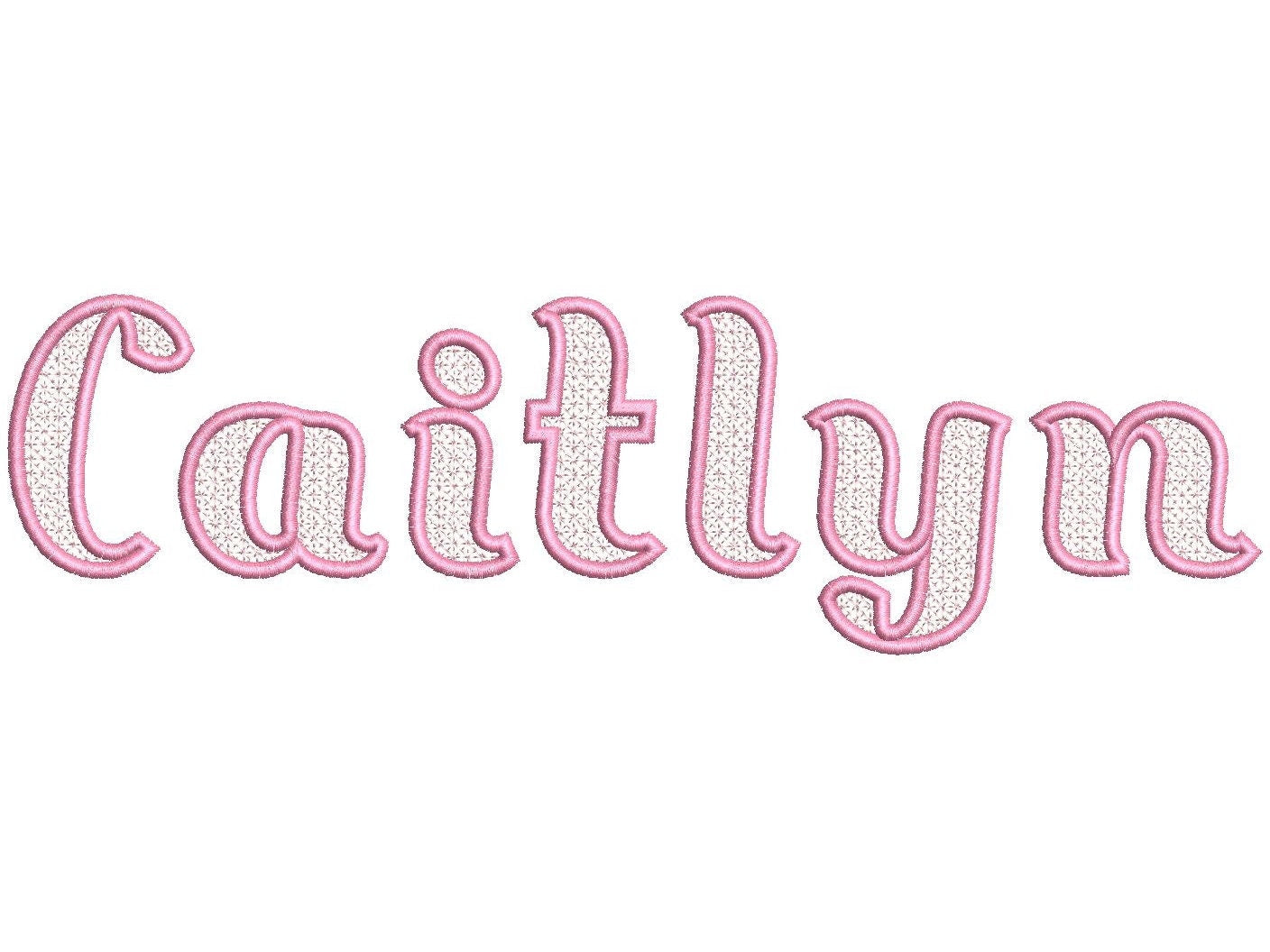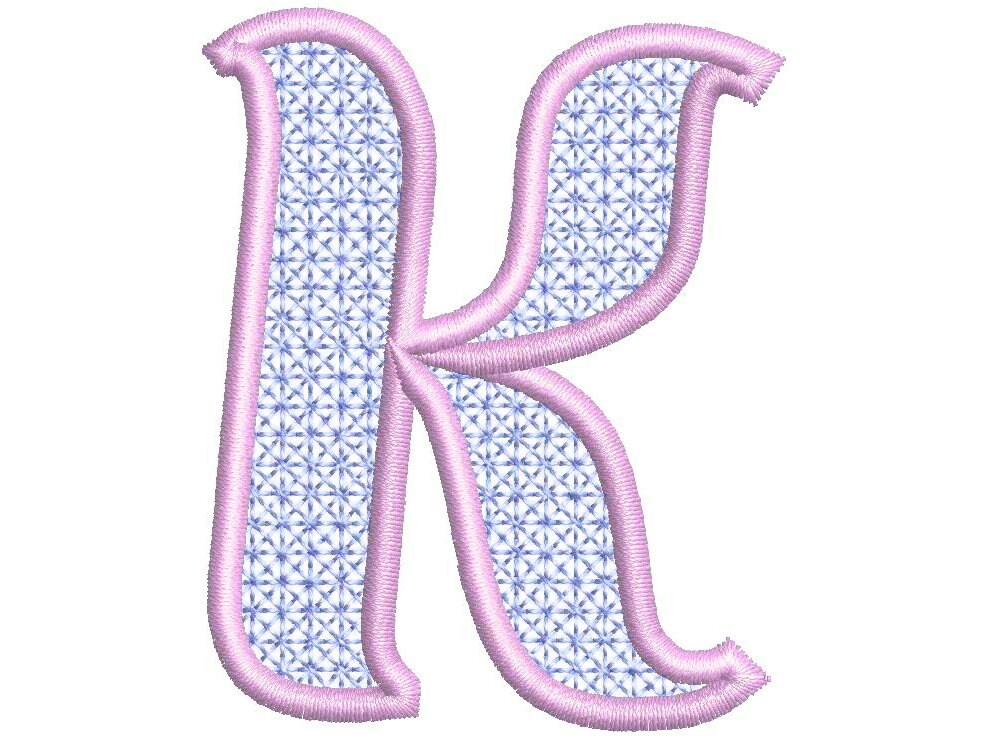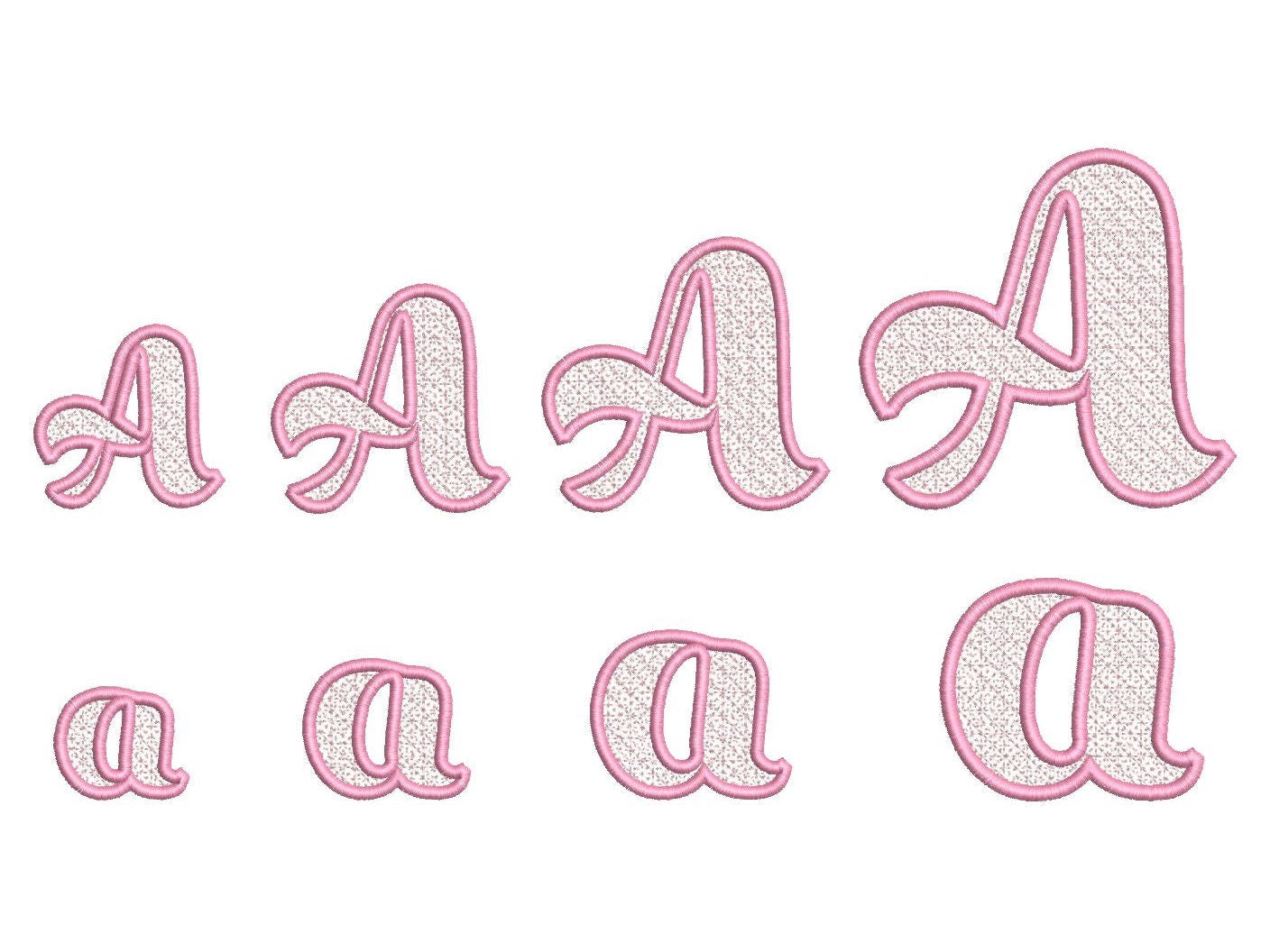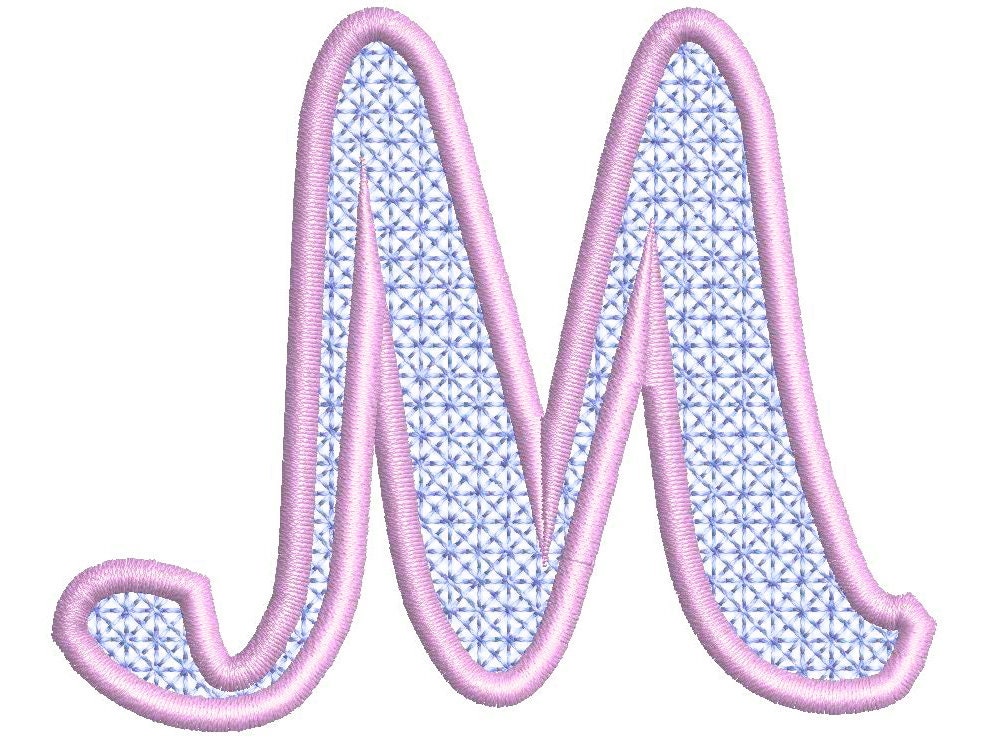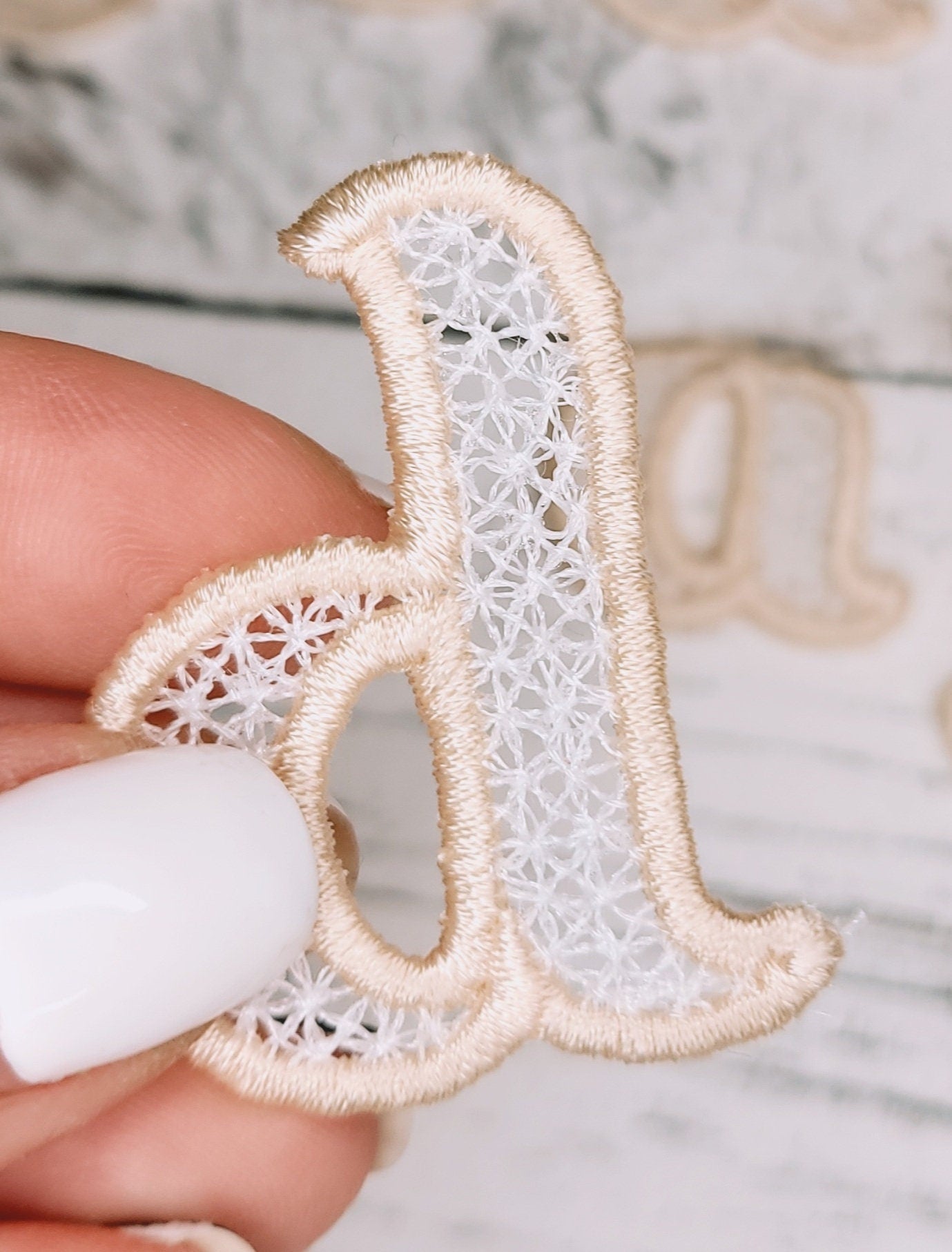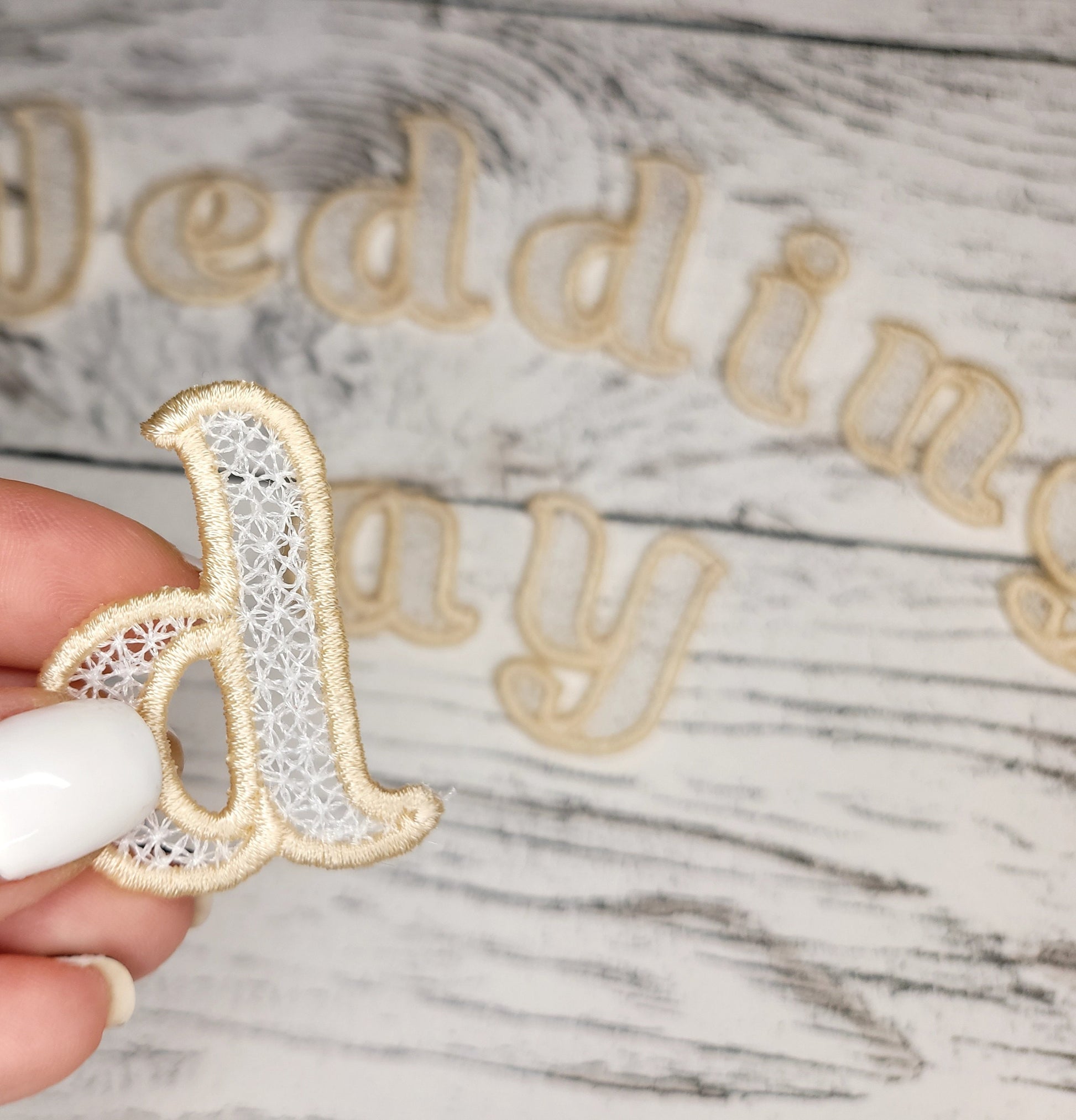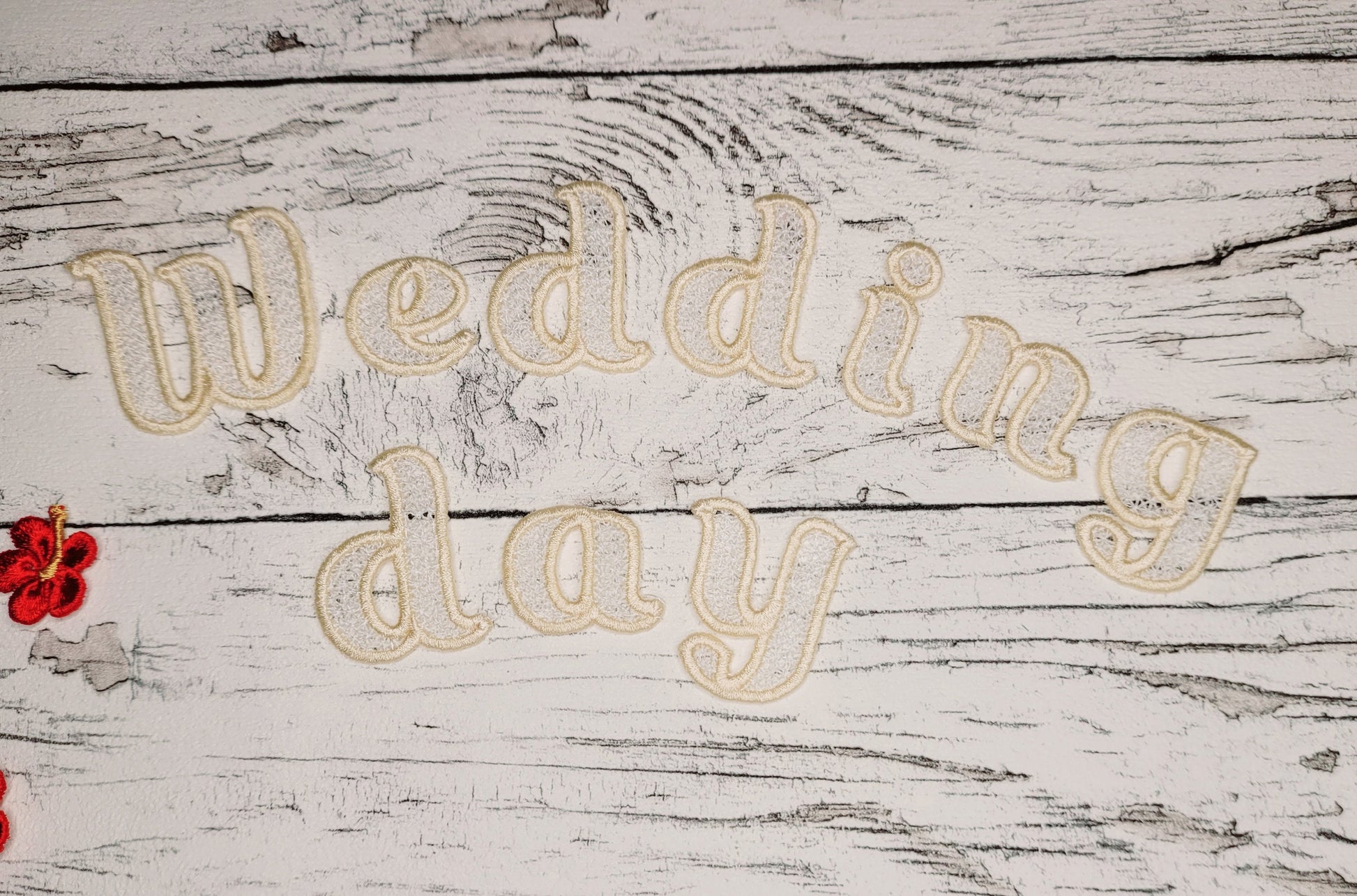
Or click to open the linkA delicate freestanding lace font with a wide satin edge, for girly names, garlands and decorations.
Uppercase and lowercase letters in four sizes: 1.9, 2.4, 2.9 and 3.7 inches. Stitched on water-soluble stabilizer, then rinsed, so no fabric is needed.